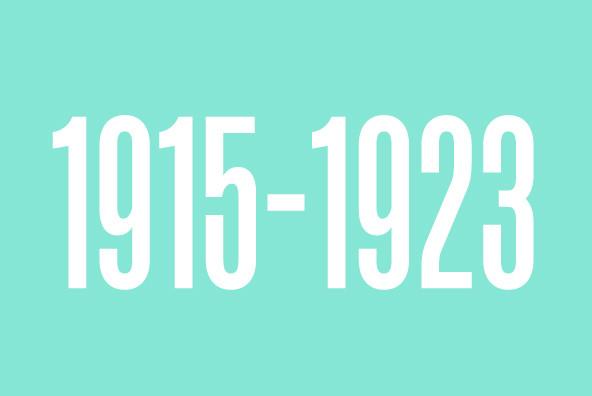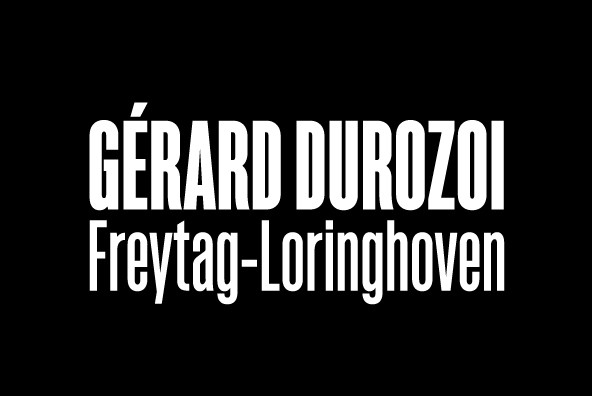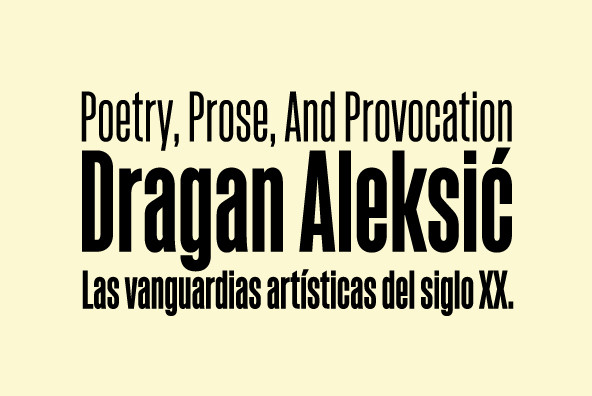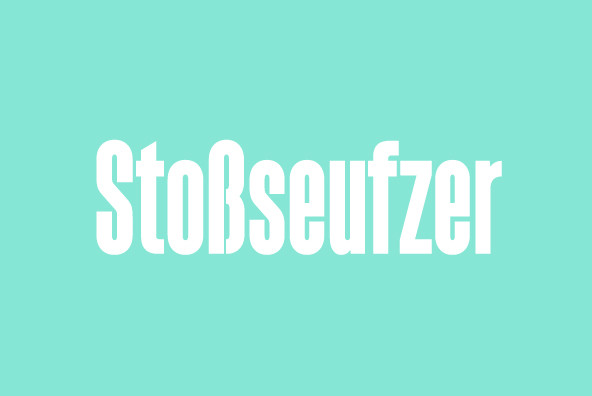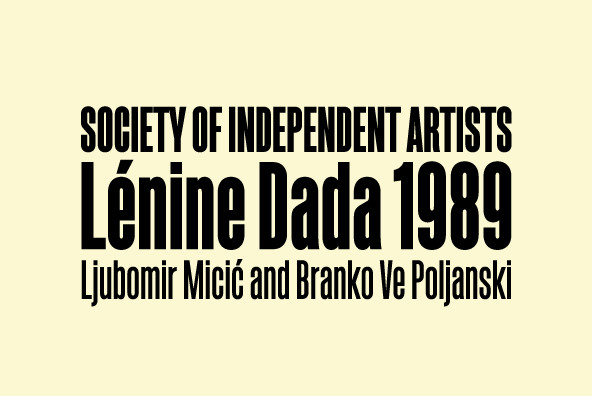
Sorren is a definitive bold condensed sans influenced by neo-grotesque designs. A relatively low stroke contrast complimented with sharp, horizontal stroke ends lend an unyielding appearance, while its rounded forms and refined curves juxtapose its inherent strength with grace.Stylistically, Sorren has a classic, timeless feel with a contemporary finish and attention to detail. It is characteristically more elegant and considerably sturdier than the typical condensed sans, lending to it's singular disposition.
Features include:
Precision kerning
Standard Ligatures set including 'f' ligatures (ff, fi, fj, fl, ffi, ffj, ffl, ae, oe, AE, OE)
Discretionary Ligatures set including (No [numero])
Alternate characters (Aringacute, hcircumflex, and numero sign)
Case forms (shifts various punctuation marks up to a position that works better with all-capital sequences)
Capital Spacing (globally adjusts inter-glyph spacing for all-capital text)
Slashed zero
Full set of numerators/denominators superior/inferior numerals
Tabular Lining, Proportional Lining, Tabular Oldstyle and Proportional Oldstyle Figures
Automatic fraction feature (supports any fraction combination)
Extended language support (Latin-1 and Latin Extended-A)